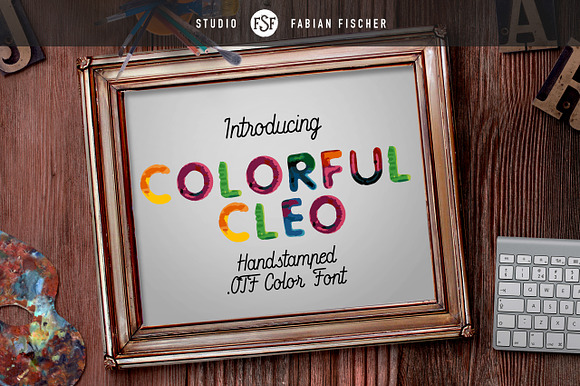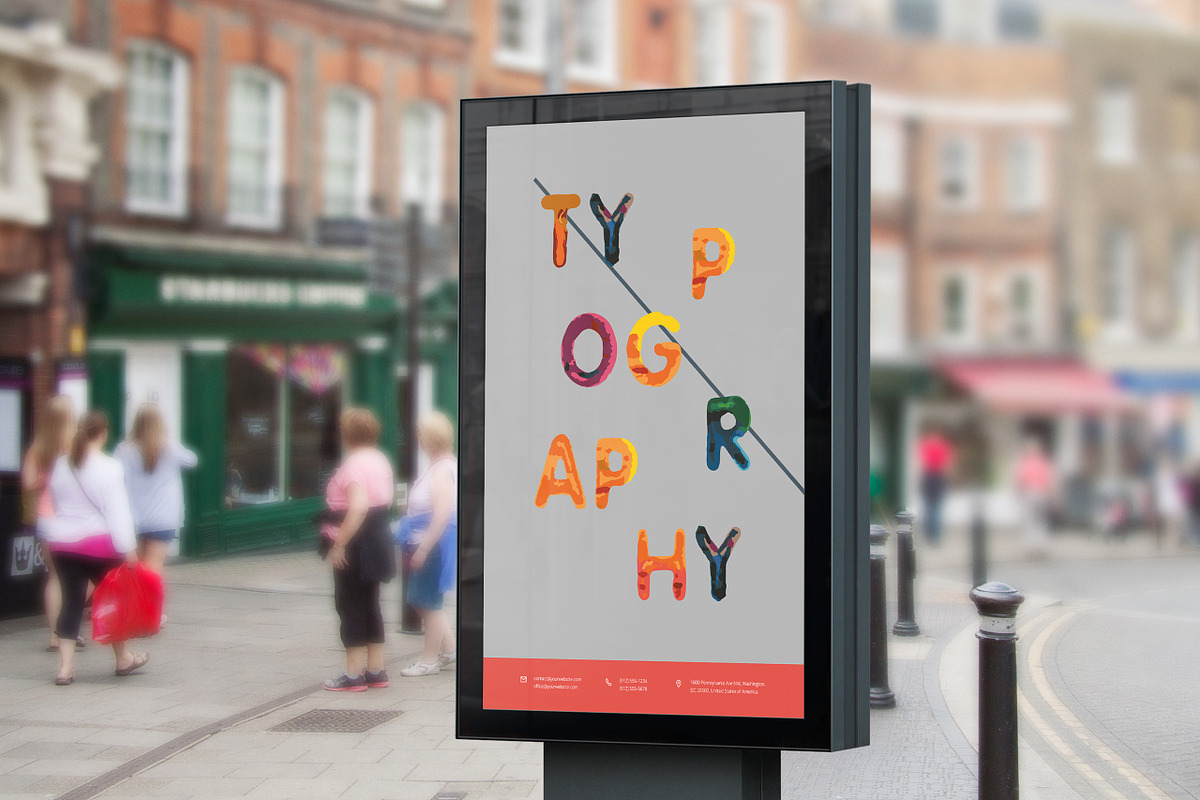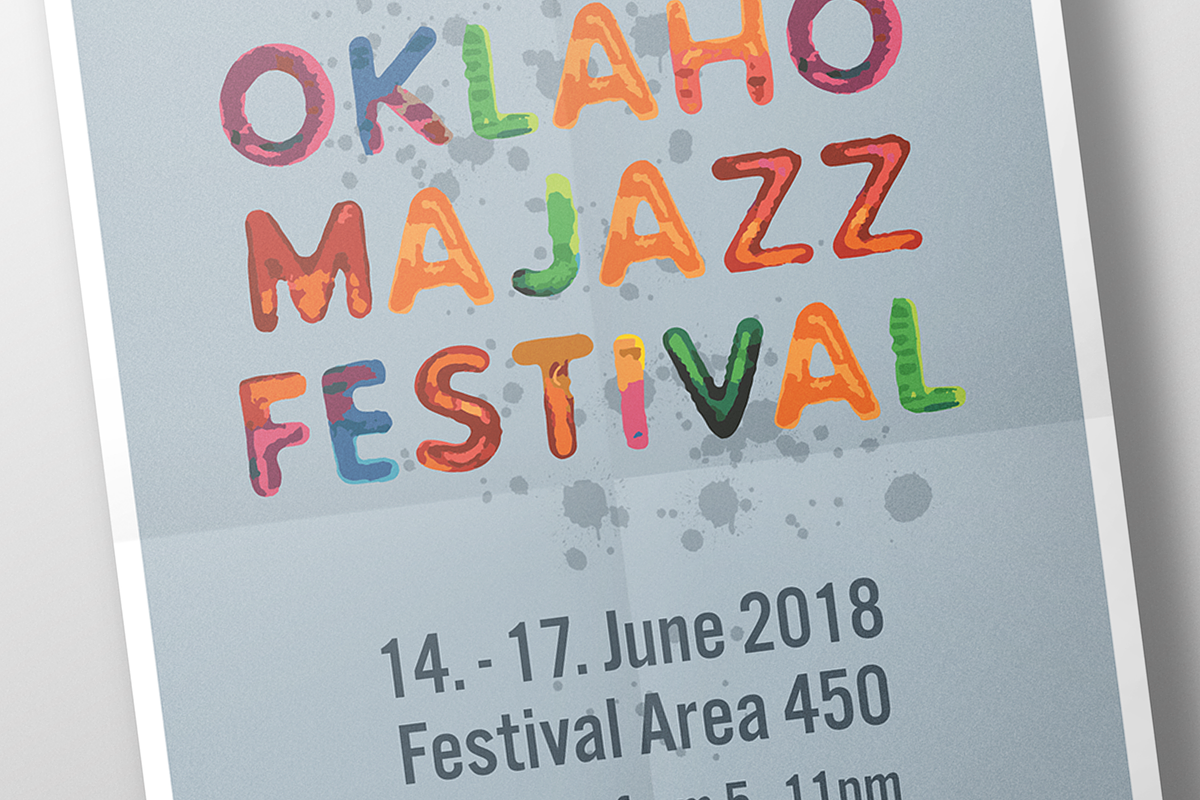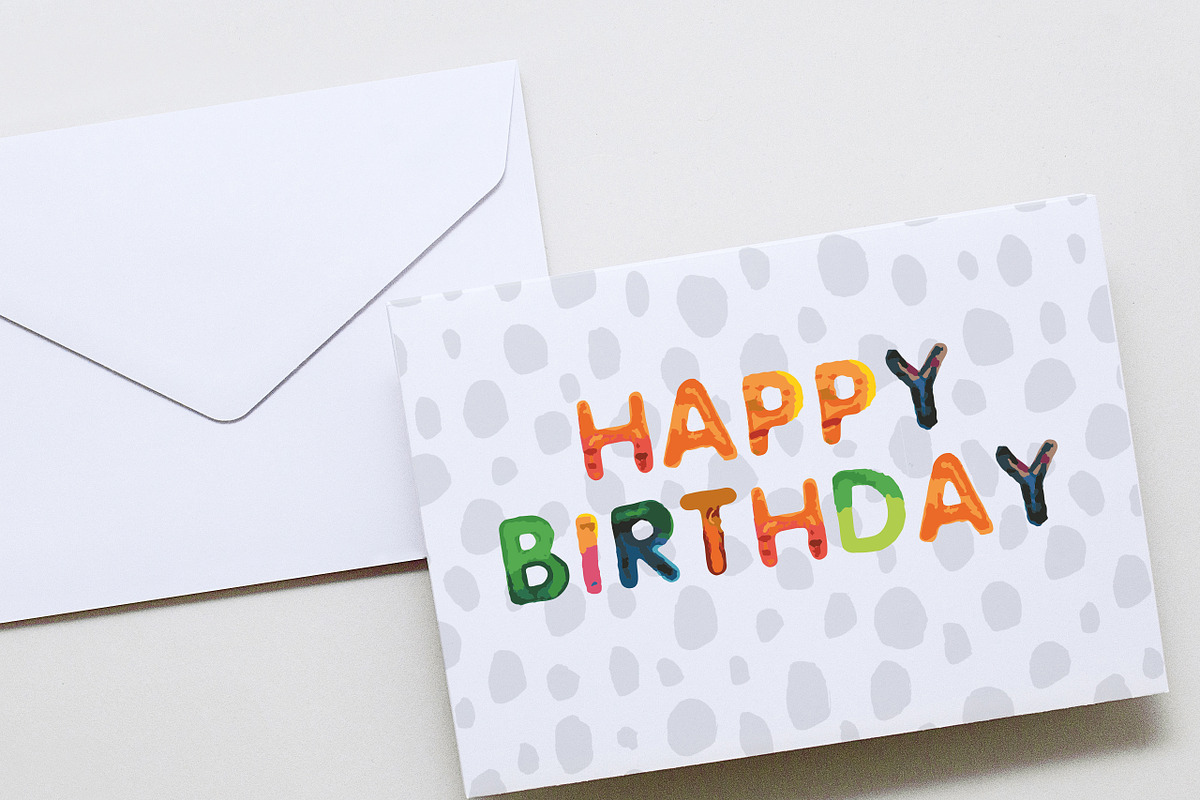
Colorful Cleo - Color Font
Happy to introduce you my new color font called "Colorful Cleo" which I created with stamped letters coated with water color. With the water color I added some nice gradient to the colors. Perfect for designing eye catching posters, covers or print media products.